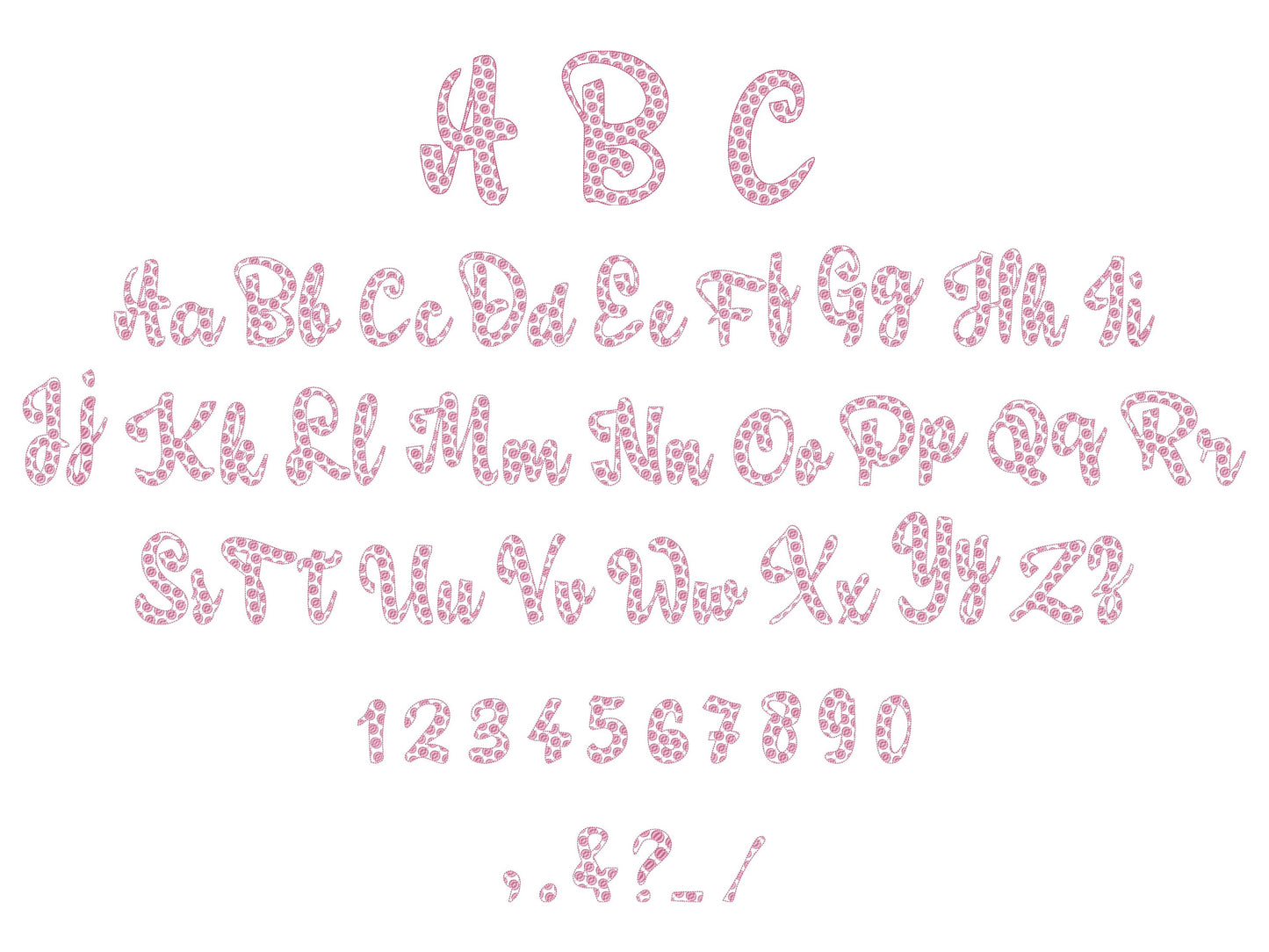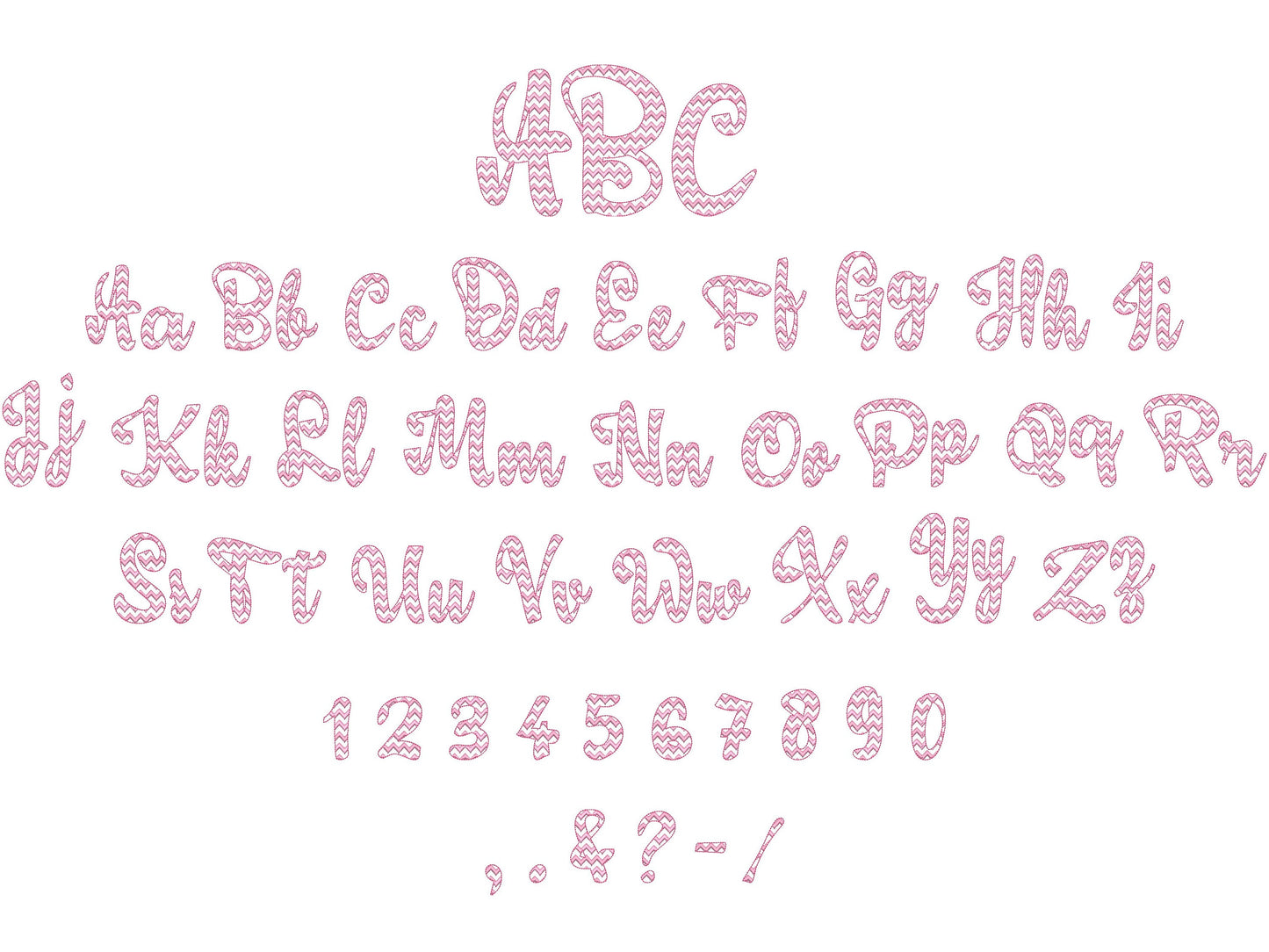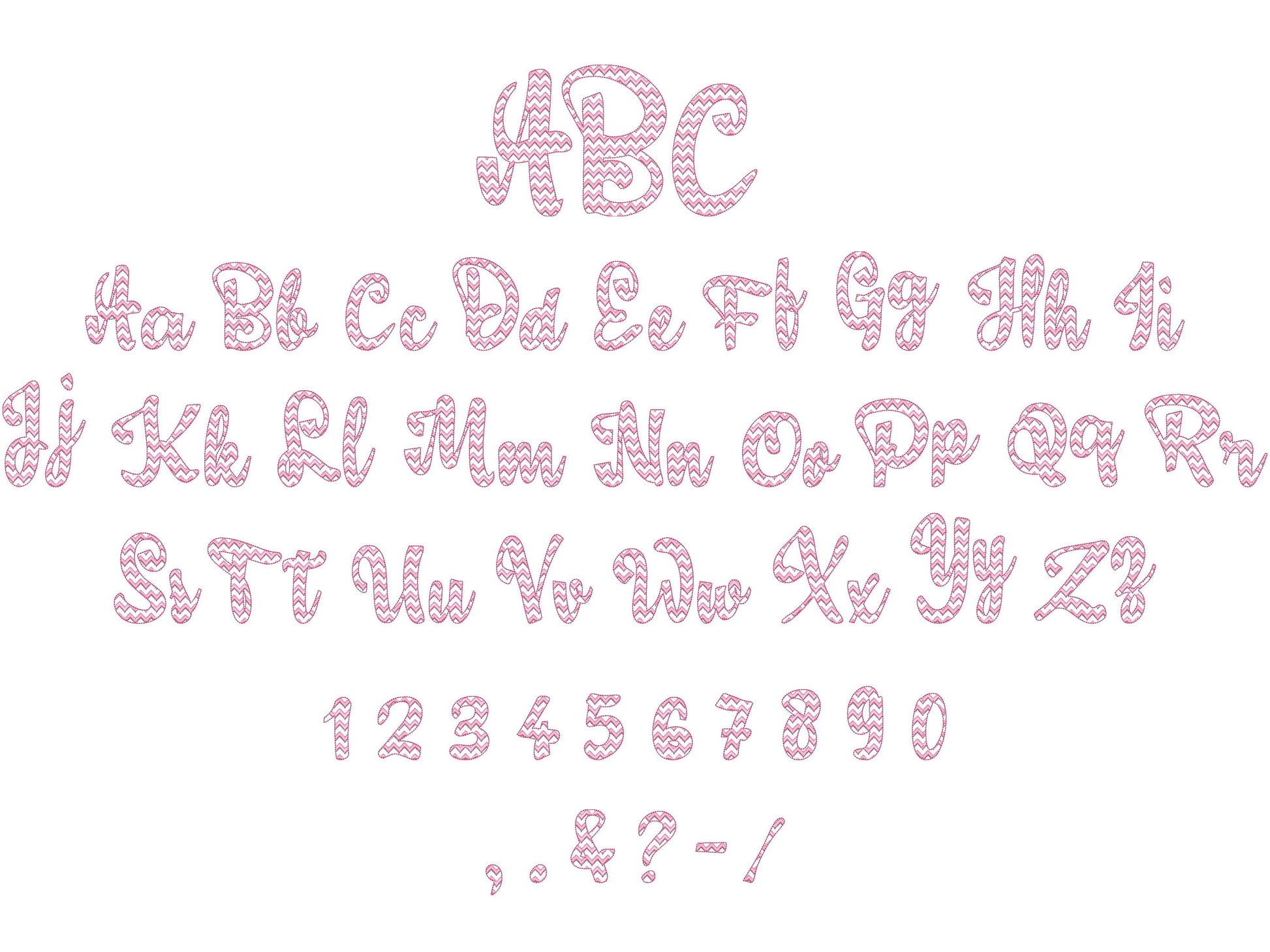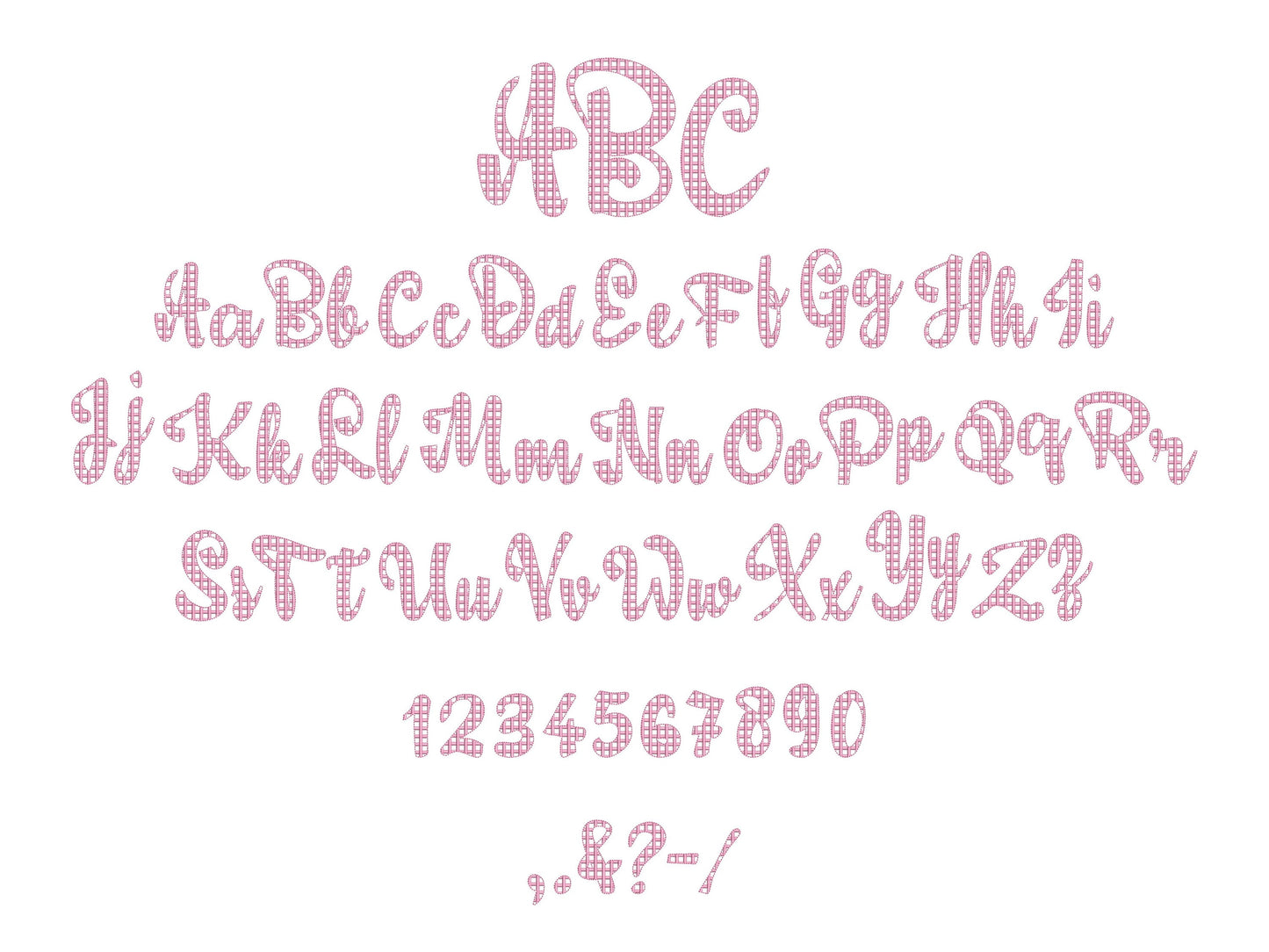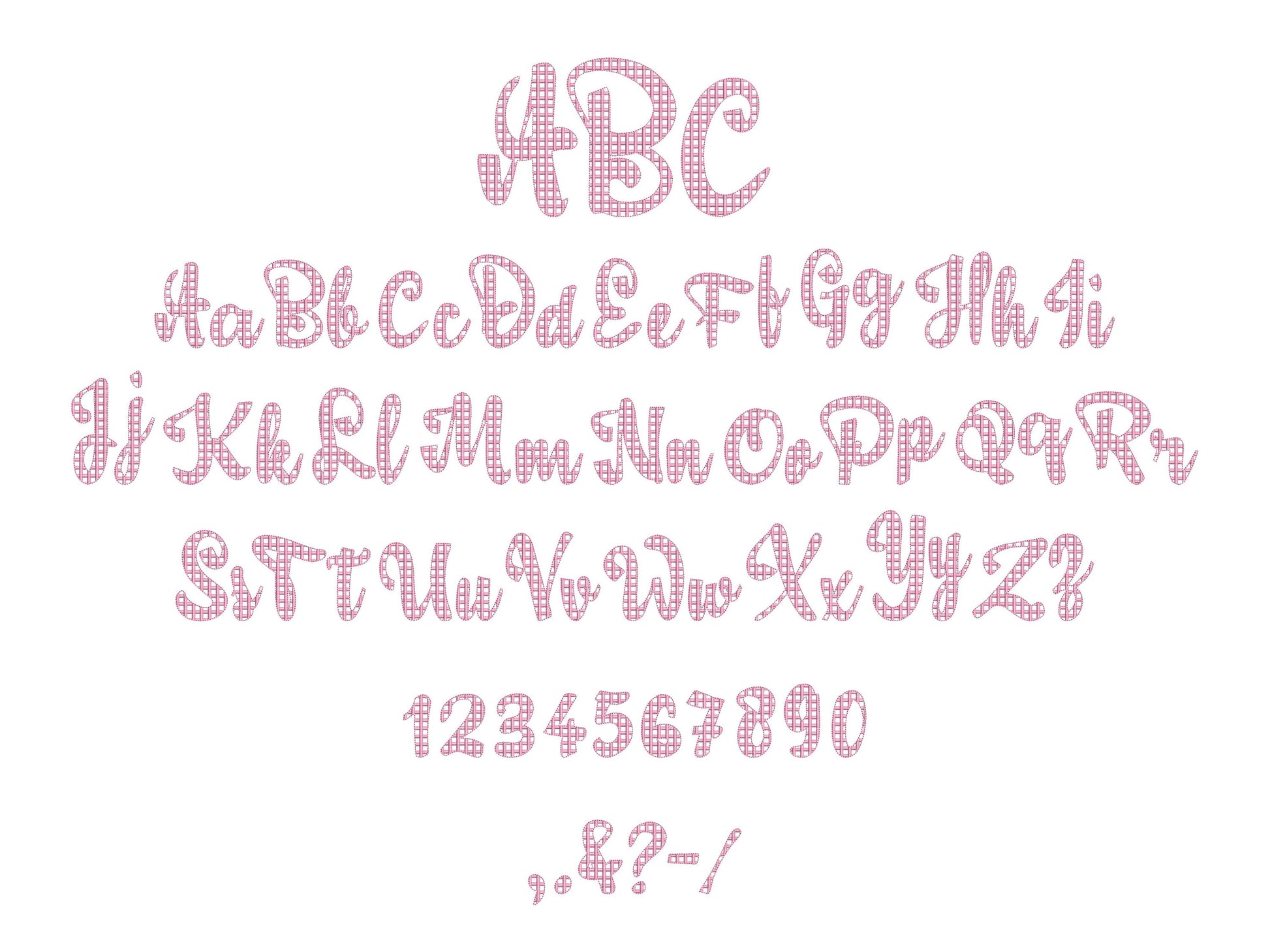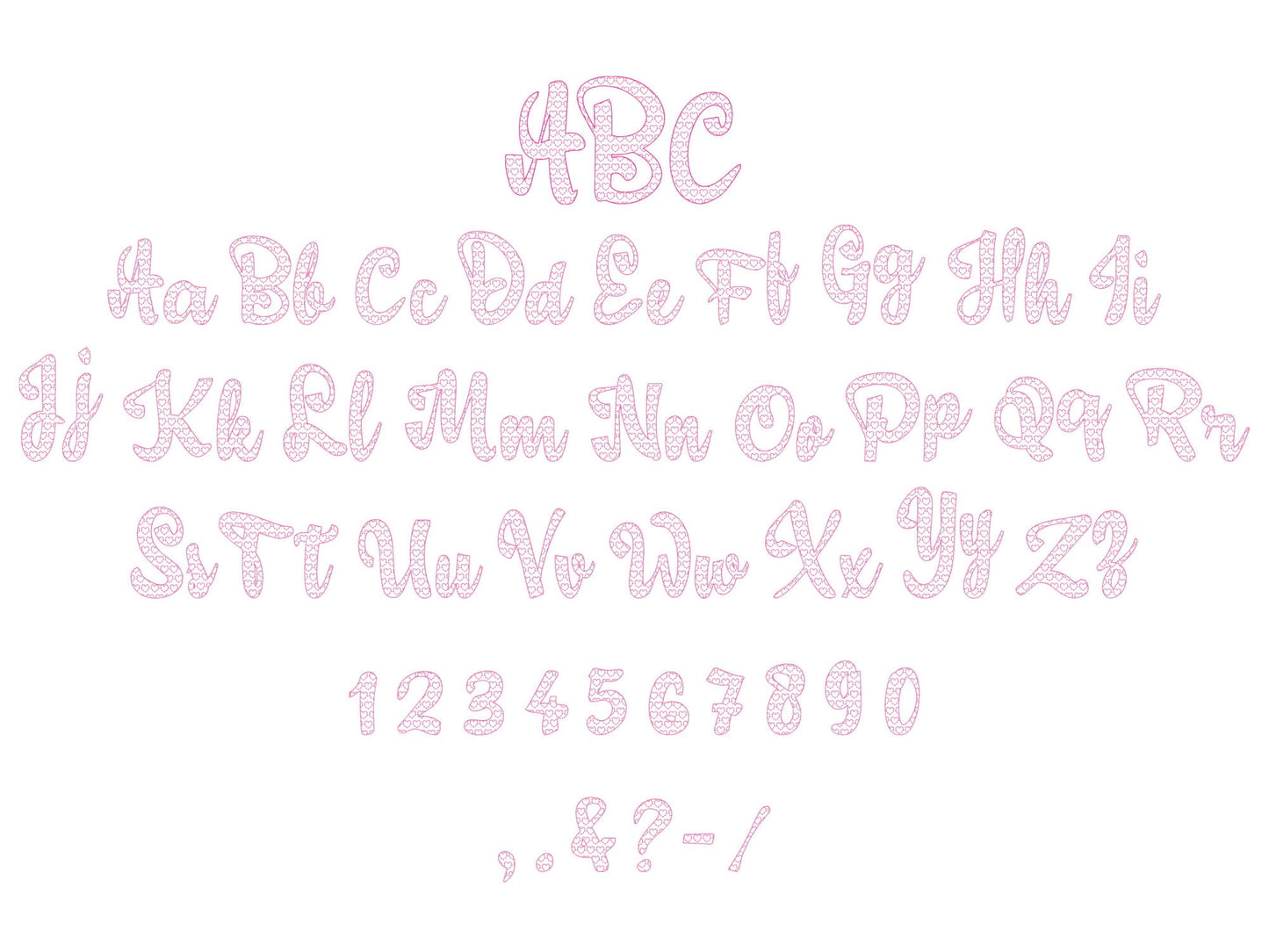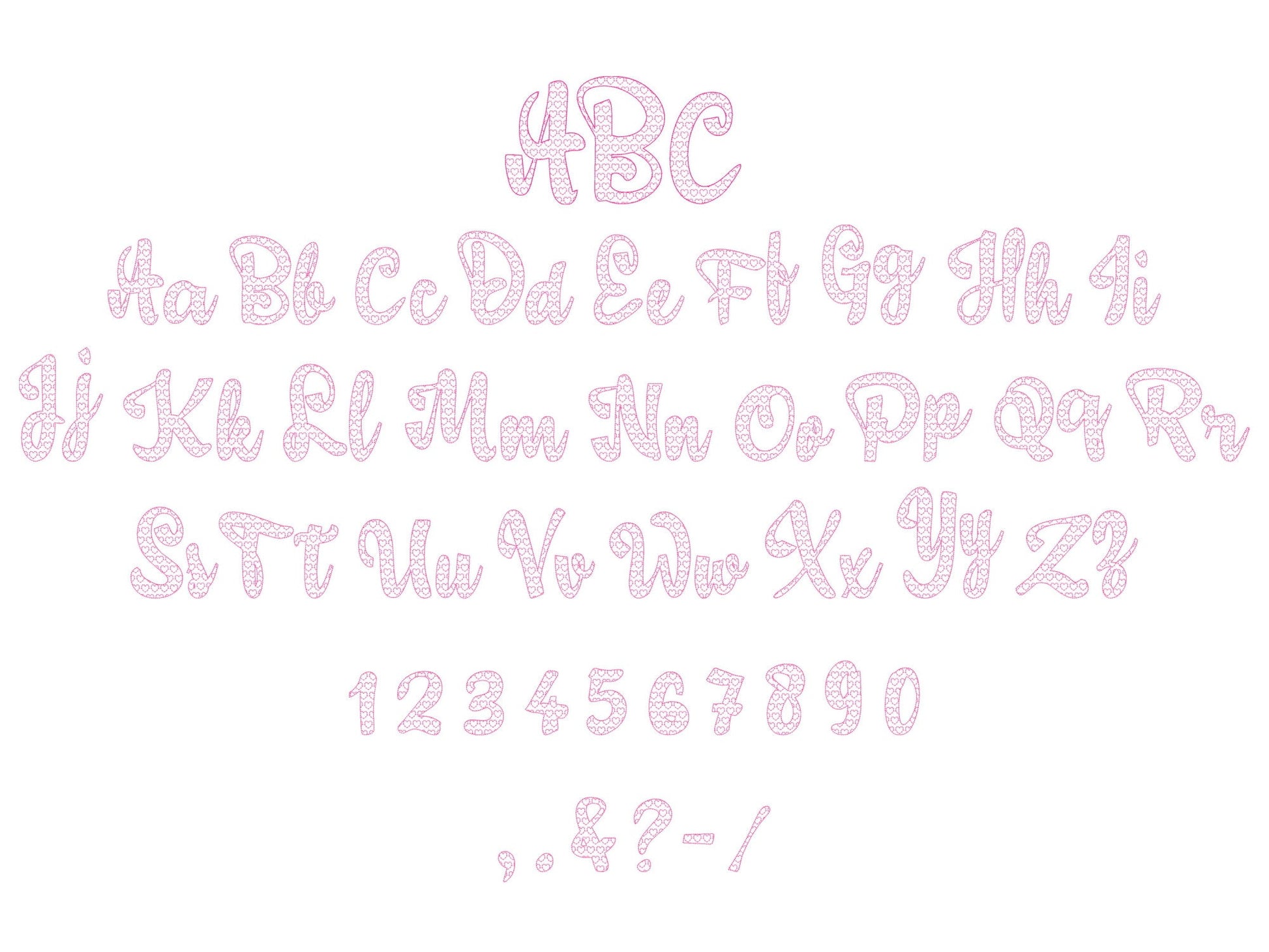
Or click to open the linkA set of four playful kids' fonts: chevron zigzag, checkered plaid, cute hearts and polka dot. Mix them for names on shirts, bags, pillows and school gear.
Four fonts, each with uppercase and lowercase letters, numbers 0 to 9 and punctuation, in six sizes: 1.8, 2.3, 2.9, 3.5, 4.2 and 5 inches. The letters are open, with a fill or satin pattern inside and a light bean stitch outline.